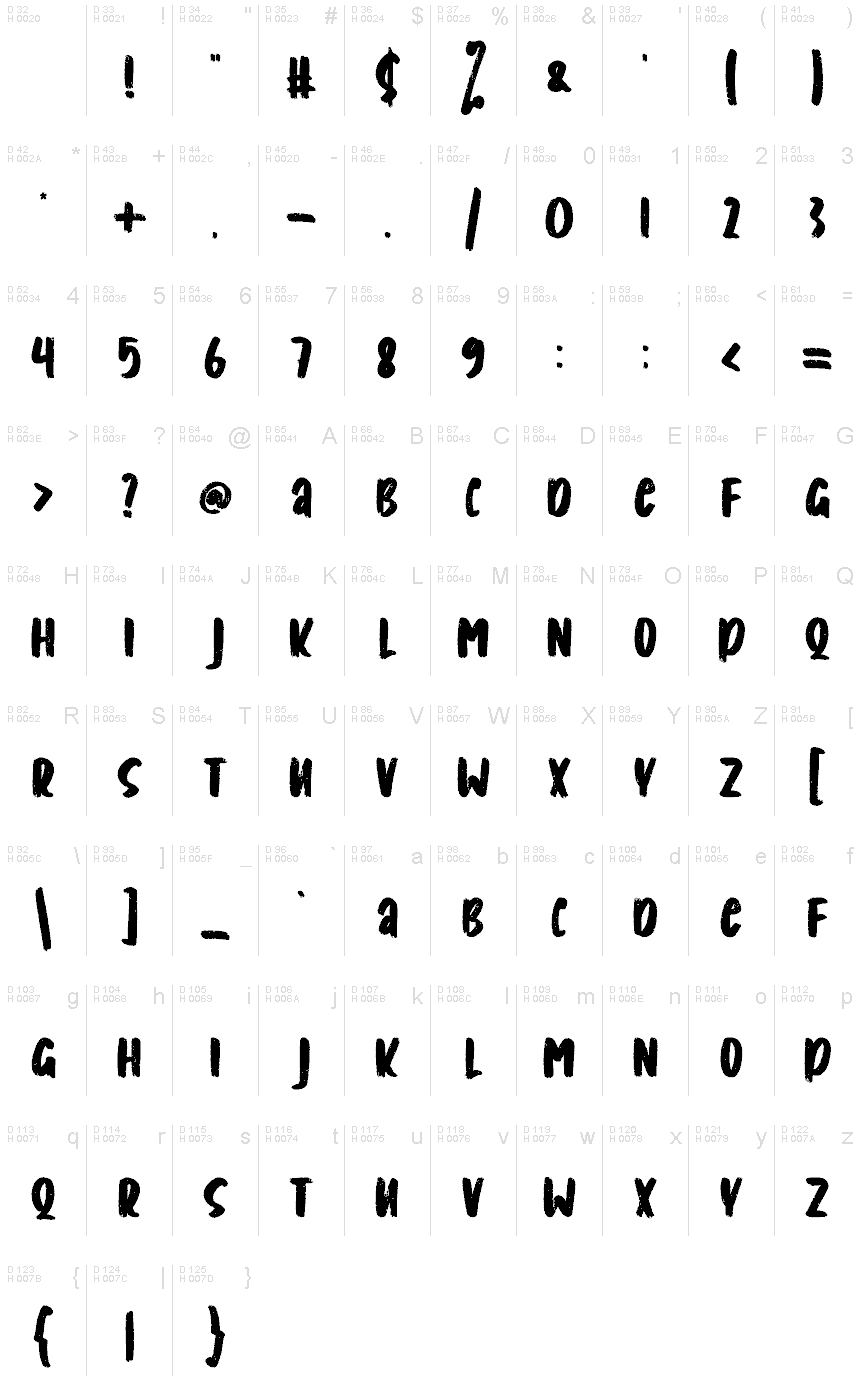
Habare
Habare font by Skiiller Studio is a free brush font that combines a grunge texture and a casual design. With an organic feel, artistic touch, and expressive style, the bold condensed font will surely make an immediate impact on the viewer. In typography terms, Habare has rough and uneven edges for an edgy look in which each character is unique.
The free font can be paired with others or used on its own for logotype ideas, subheadings, websites titles, advertisements (flyers), posters design (non-digital), labels and packaging design. It can also be used to decorate cards (invitations) and posters inside schools (handwriting practice).